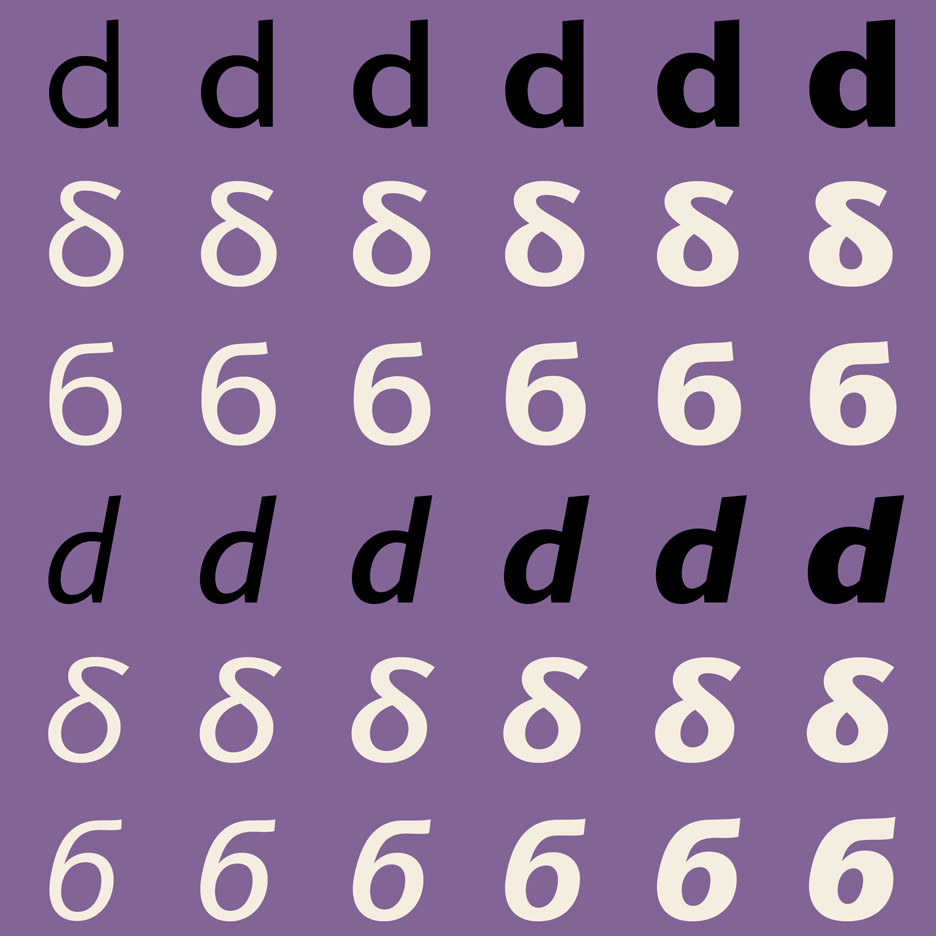
Type foundry Monotype has used long-hidden drawings by British designer Eric Gill to create the first new typeface based on his work in more than 75 years. (more…)